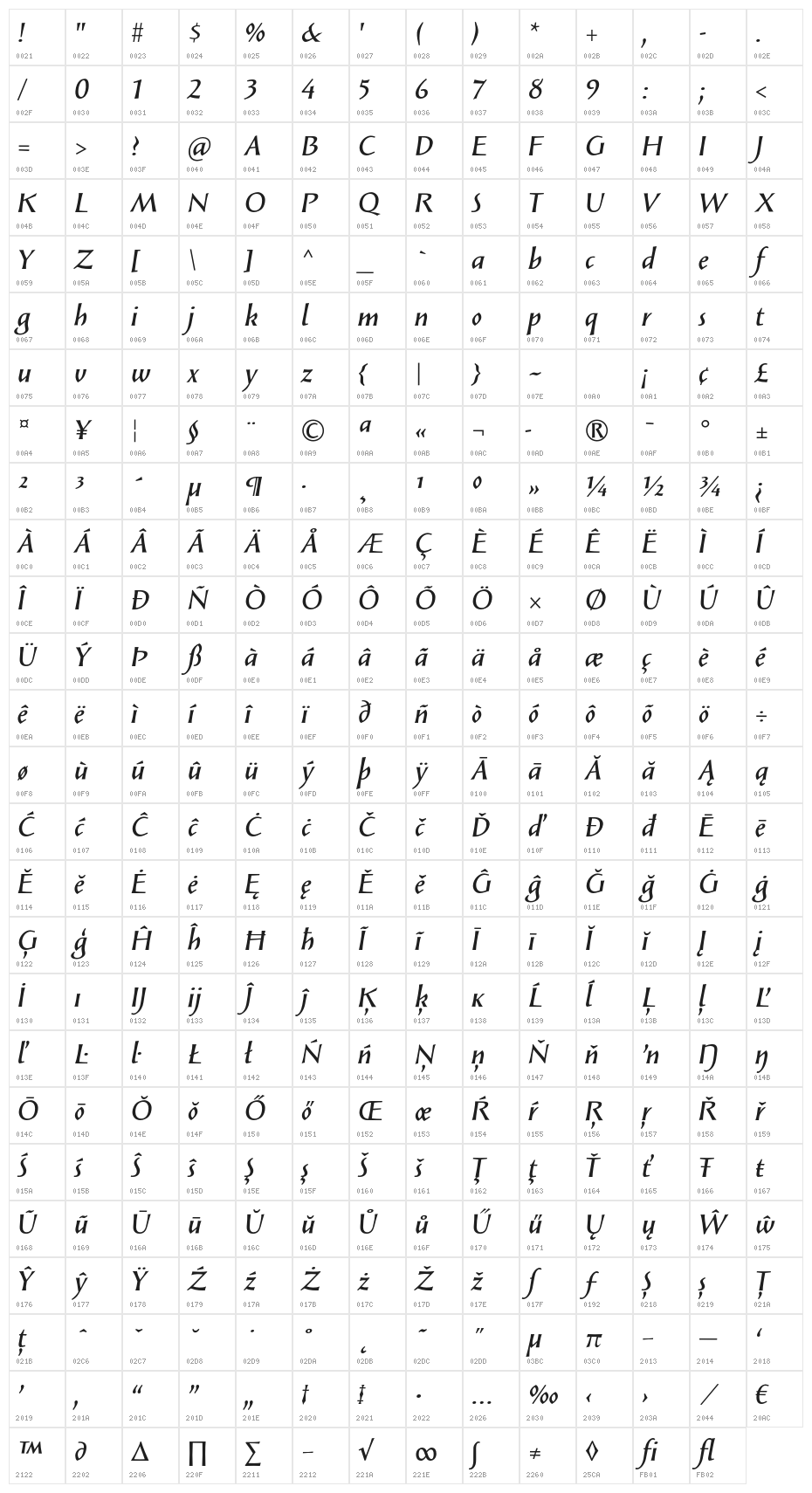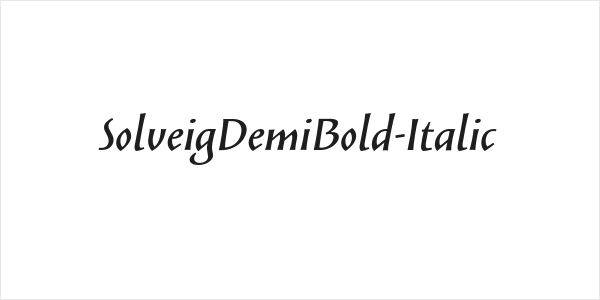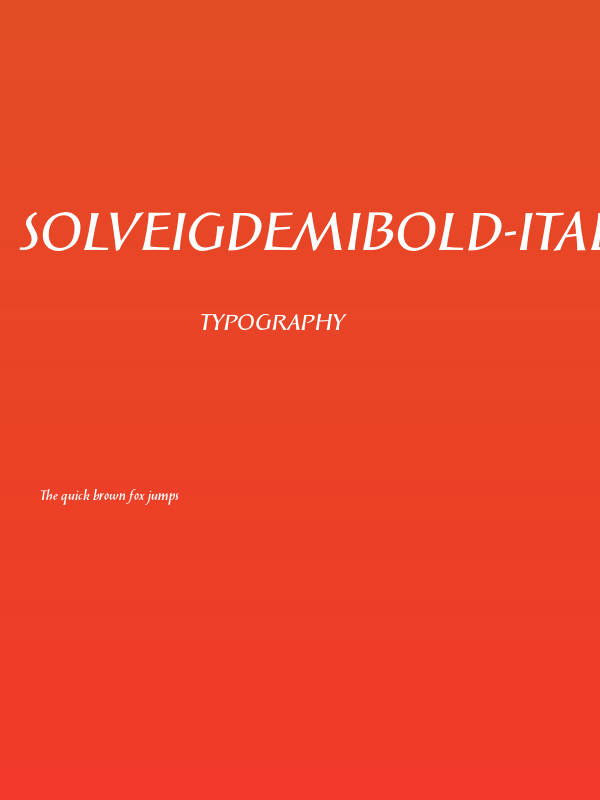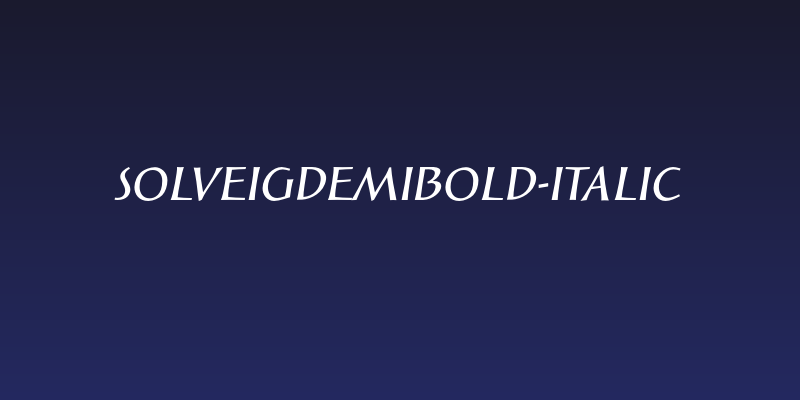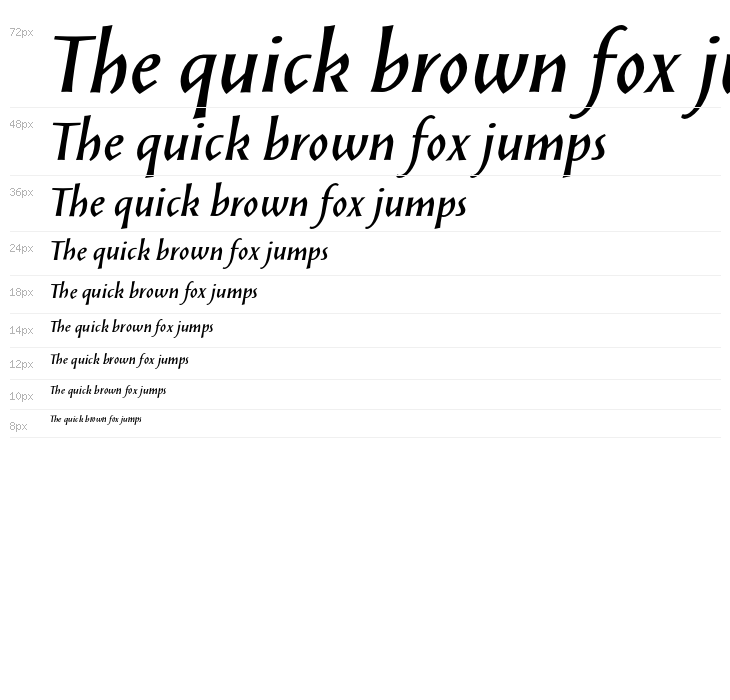
SolveigDemiBold-Italic Font
SolveigDemiBold-Italic Description
This font features a dynamic and elegant style with a slight slant, giving it an italicized appearance. The characters are well-defined with smooth curves and sharp edges, creating a sense of movement and sophistication. The uppercase letters are tall and commanding, while the lowercase letters maintain a consistent flow with a slightly playful touch. Numbers are clear and distinct, complementing the overall aesthetic. Special characters are crafted with precision, adding to the font's versatility. The font's design is suitable for projects that require a touch of elegance and modernity.